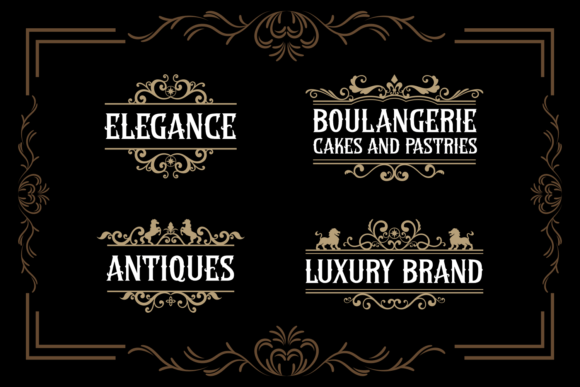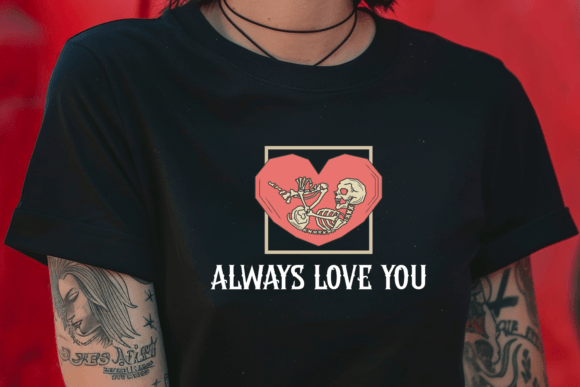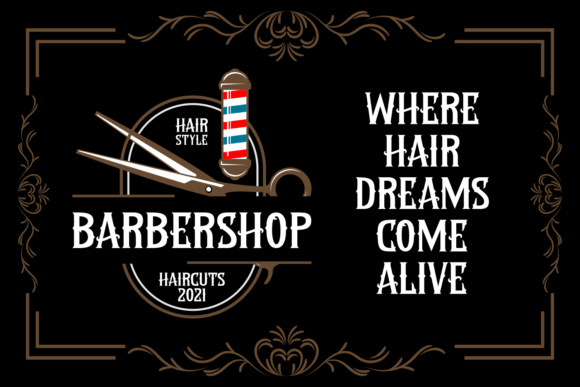
Hate Love Font: The Ultimate Choice for Edgy and Rebellious Designs
Are you looking for a font that exudes a sense of rebellion and edginess? Do you want to add a touch of gothic charm to your designs? Look no further than the Hate Love font, a charming blackletter typeface that’s perfect for clothing lines, music labels, and companies with a medieval or alternative theme.
The Characteristics of Hate Love Font
Hate Love is a blackletter font that boasts a unique and captivating design. Its intricate and ornate lettering is reminiscent of traditional medieval calligraphy, but with a modern twist that gives it an edgy, rebellious vibe. The font features dramatic flourishes and sharp lines that add to its gothic charm.
Perfect for Gothic and Alternative Themes
Hate Love is ideal for designers and crafters who want to create a bold and daring visual statement. The font’s blackletter style is commonly associated with gothic and alternative cultures, making it a natural fit for brands and businesses that want to tap into this aesthetic. Whether you’re designing a logo, t-shirt, or album cover, Hate Love is sure to make a lasting impression.
Use Cases for Hate Love Font
So, where can you use the Hate Love font? The possibilities are endless! Here are a few ideas to get you started:
- Clothing lines: Add a touch of edginess to your apparel with Hate Love. Perfect for t-shirts, hoodies, and other clothing items that want to make a bold statement.
- Music labels: Hate Love is a natural fit for music labels that specialize in gothic, punk, or alternative music.
- Gothic and alternative brands: If your brand is all about embracing the darker side of life, Hate Love is the perfect font for you.
- Medieval-themed businesses: Whether you’re running a medieval-themed restaurant, bar, or store, Hate Love is sure to transport your customers back in time.
Why Choose Hate Love Font?
So, why choose Hate Love over other fonts? Here are just a few reasons:
- Unique design: Hate Love boasts a unique and captivating design that’s sure to stand out from the crowd.
- Highly versatile: Whether you’re designing a logo, t-shirt, or album cover, Hate Love is highly versatile and can be used in a variety of contexts.
- Easy to read: Despite its ornate design, Hate Love is surprisingly easy to read, making it perfect for body text and headlines.
Tips for Using Hate Love Font
Here are a few tips for getting the most out of Hate Love:
- Use it sparingly: While Hate Love is a beautiful font, it can be overwhelming if used excessively. Use it sparingly to add a touch of edginess to your designs.
- Pair it with contrasting fonts: Pair Hate Love with contrasting fonts to create visual interest and add depth to your designs.
- Experiment with colors: Hate Love looks great in bold, bright colors. Experiment with different colors to find the perfect combination for your design.
In conclusion, Hate Love is a charming blackletter typeface that’s perfect for designers and crafters who want to add a touch of edginess to their designs. With its unique design, high versatility, and ease of use, Hate Love is sure to become a staple in your font collection. So why wait? Download Hate Love today and start creating bold, daring designs that are sure to make a lasting impression.